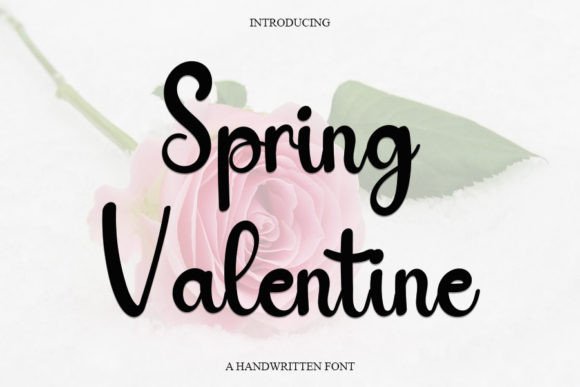
Add Romantic Elegance with Spring Valentine Handwritten Font
The Spring Valentine Handwritten Font is a delightful and elegant typeface that brings warmth, romance, and a playful twist to your design projects. Carefully crafted with attention to every curve and stroke, this handwritten font adds a touch of personality to anything it touches.
Its clean yet quirky look makes it ideal for creatives who want to blend sophistication with a handcrafted charm.
Perfect for Logos, Social Media, and DIY Projects
Spring Valentine is incredibly versatile. It’s a top choice for logos, brand identity kits, product packaging, and business cards. Whether you’re designing for a romantic brand or crafting a seasonal promotion, this font adds the perfect dose of friendliness and polish.
Additionally, it’s a fantastic fit for social media graphics, including Instagram quotes, Pinterest pins, and TikTok overlays. Use it in DIY printables, greeting cards, or Etsy shop visuals to create a consistent and delightful aesthetic.
Handcrafted Simplicity with a Touch of Whimsy
What sets the Spring Valentine Font apart is its balance between clean, professional lines and playful details. The letters are smoothly drawn, maintaining perfect legibility even in smaller text. At the same time, there’s a subtle charm in the uneven strokes and slightly quirky design—giving your work that unique, handcrafted edge.
This makes it a great option for both formal and casual designs. Whether you’re aiming for elegance or fun, Spring Valentine adapts beautifully to your tone.
Ideal for Print and Digital Design
No matter the format, Spring Valentine performs consistently and beautifully. It works flawlessly in print projects like wedding invitations, custom T-shirts, event flyers, and art prints. For digital use, it enhances website headers, blog graphics, email banners, and more.
You can elevate your design by pairing it with a neutral serif or sans-serif typeface. This creates contrast while keeping the overall look clean and cohesive.
Why Choose Spring Valentine Handwritten Font?
Here are a few reasons designers love it:
Elegant, clean, and slightly quirky handwritten style
Readable across all sizes and screen types
Suitable for branding, DIY projects, and digital media
Pairs well with other fonts for flexible styling
Add a Romantic, Creative Spark to Your Designs
In conclusion, the Spring Valentine Handwritten Font brings an irresistible combination of elegance, charm, and creativity. Whether you’re building a brand, creating a heartfelt card, or designing content for your followers, this font offers a unique voice that stands out.
If you’re searching for a script font that blends modern sophistication with a handwritten touch, Spring Valentine is the perfect choice to bring your ideas to life.